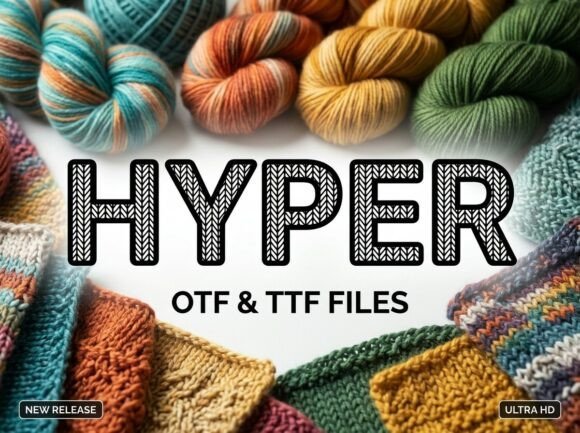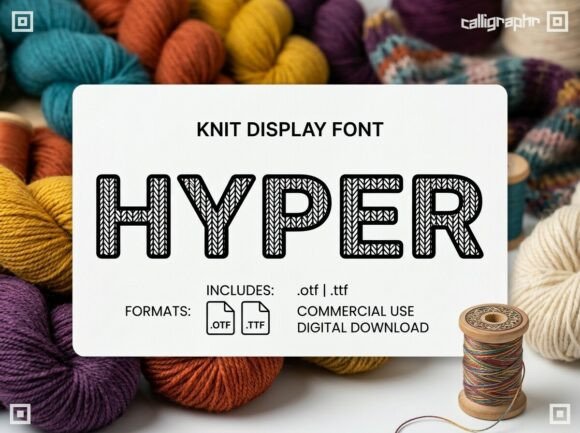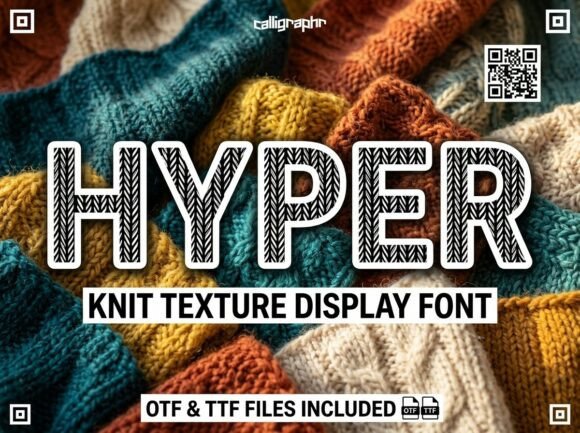
Embracing the Cozy Aesthetic: The Rise of Hyper Font
There’s nothing quite like the feeling of curling up with a good book, a warm cup of coffee, and a hand-knit blanket on a chilly winter evening. It’s moments like these that inspire designers to create typography that feels like a hug in a digital format. For those seeking to evoke a sense of warmth and tactility in their designs, look no further than Hyper Font.
Hyper Font is a cozy display typeface that masterfully blends the organic feel of hand-drawn textures with the clean lines of sans-serif letterforms. Its unique knit pattern gives it a distinctive “handcrafted-and-homegrown” soul, making it the perfect choice for designers who want to add a touch of personality to their projects. With Hyper Font, designers can create visually striking designs that feel like a warm embrace, perfect for branding, editorial layouts, and social media headers.
Hyper Font Key Features
- Unique Character Set: Hyper Font boasts an extensive character set, including over 1000 glyphs, covering multiple languages and scripts for global accessibility.
- Scalability and Versatility: Hyper Font is designed to be highly scalable, making it suitable for use in various design applications, from small text to large headings, and from digital screens to printed materials.
Hyper Font Review
Overall, I’d say Hyper Font is an interesting choice for designers looking to add some extra flair to their projects. ✨ The font’s bold, futuristic aesthetic is perfect for futuristic, sci-fi, or tech-related themes.
- ✨ The font is available in a range of weights and styles, making it easy to find the perfect fit for your project.
- ⚠️ The font can be a bit overbearing in certain contexts, so be sure to use it sparingly.
- ⚠️ The font’s futuristic aesthetic may not be to everyone’s taste.
Overall, I’d give Hyper Font 3.5 out of 5 stars. While it’s a great choice for certain projects, it may not be the best fit for every design.
Hyper Font is ideal for creating eye-catching headlines, logos, and titles. To get the most out of it, use it sparingly to create visual interest and emphasis. Some common use cases include:
- Creating a bold and modern logo
- Designing a striking headline or title
Exploring Hyper Font in Creative Projects
Project 1: Neon Cityscape
Create a futuristic cityscape using Hyper Font to add a neon-like effect to your design. This project will showcase the versatility of Hyper Font in creating a vibrant and eye-catching visual effect.
Project 2: Cyberpunk Graffiti
Create a gritty and edgy graffiti design using Hyper Font to add a cyberpunk twist. This project will showcase the use of Hyper Font in creating a bold and eye-catching visual effect.